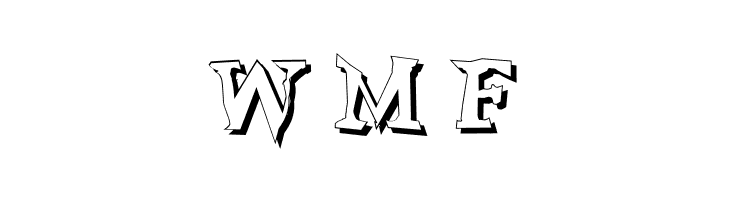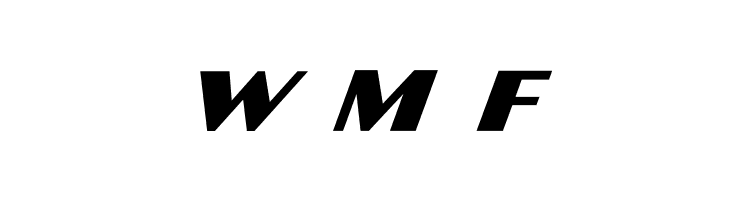
An ornate and intricate blackletter font with a classic and historical style.
A bold, decorative Blackletter font with intricate Gothic elements.
( Fonts by Bree Gorton )
A playful, wavy font with a hand-drawn, irregular style.
( Fonts by Bree Gorton )
A bold, playful font with a wiggly, shadowed design and hand-drawn style.
( Fonts by Dave Fabik - home.teleport.com/~dfabik/ )
A modern, artistic font with tall, slender characters and unique design elements.
( Andrew Bertram )
A bold, italicized font with a dynamic and modern style.
( Fonts by Wildan Type )
A modern, elegant script font with a natural handwritten style.
( Fonts by Wildan Type )
A fluid and elegant script font with a dynamic italic slant.